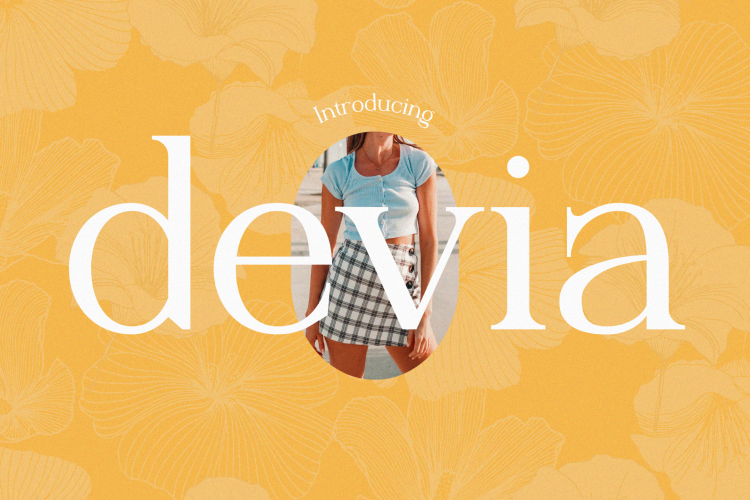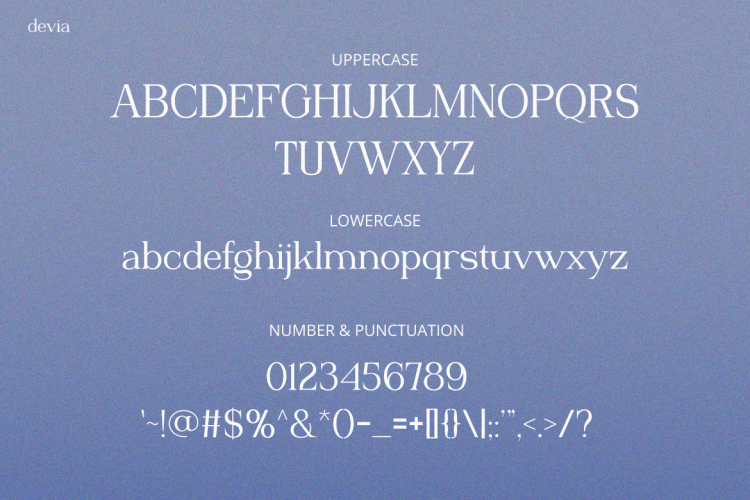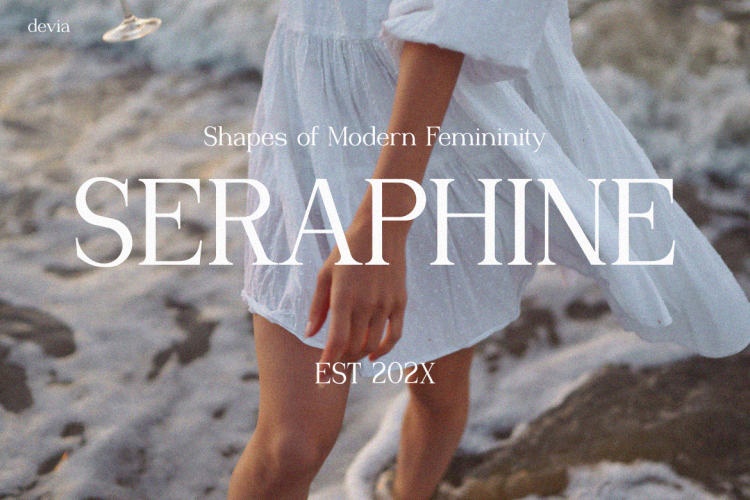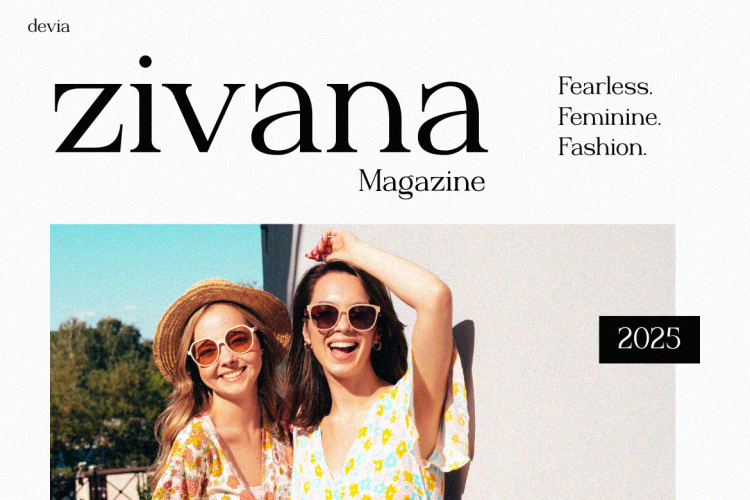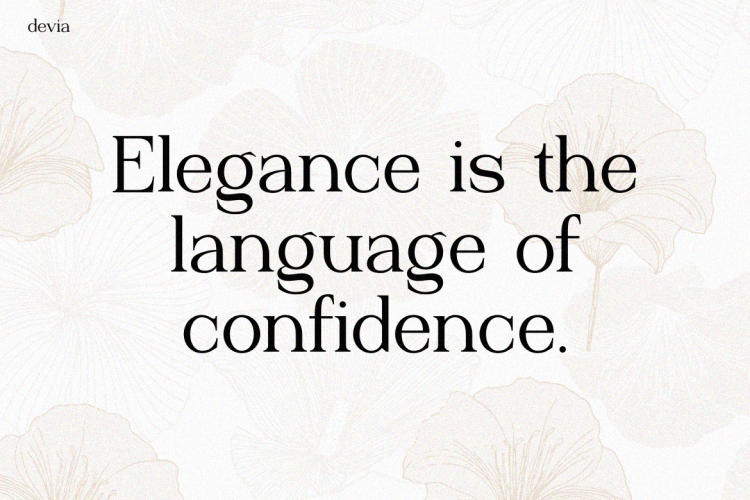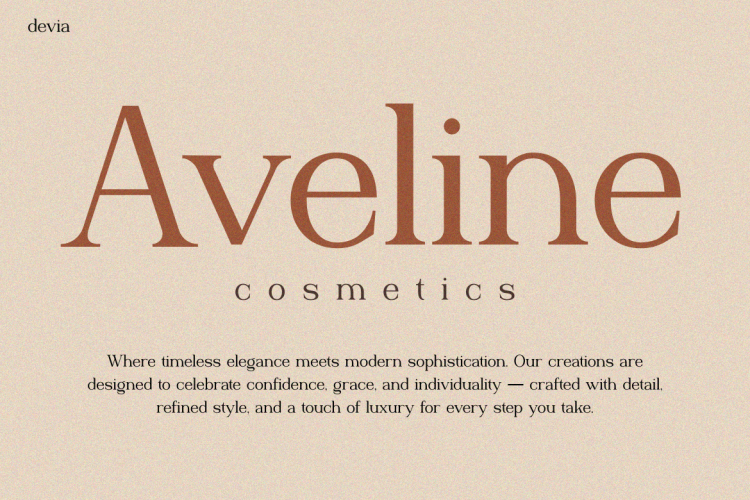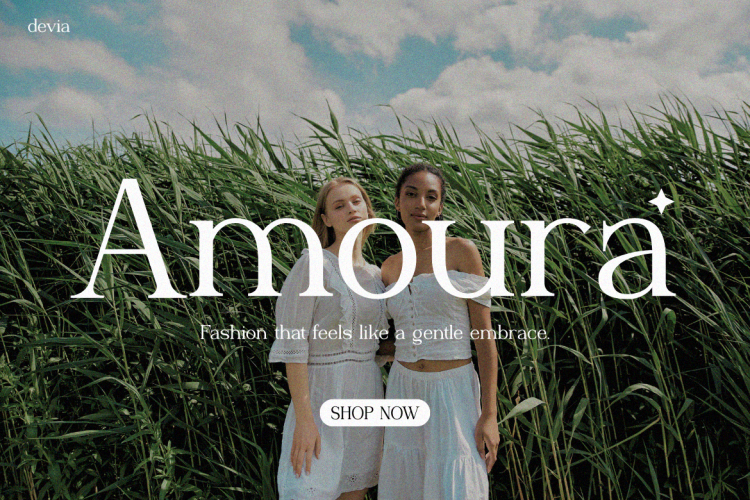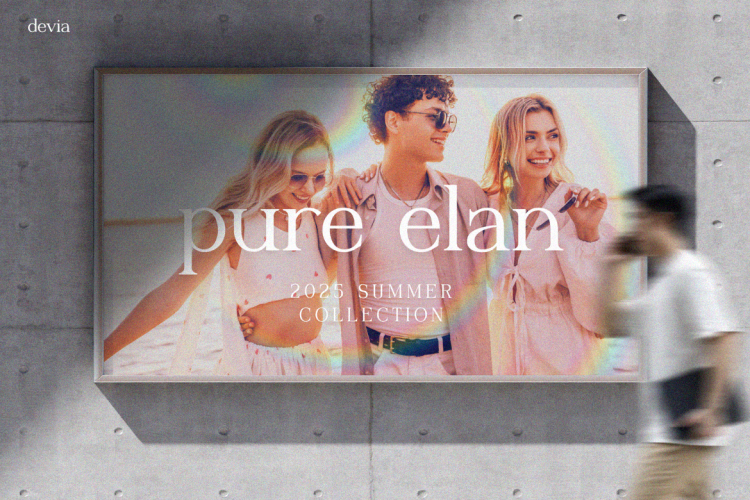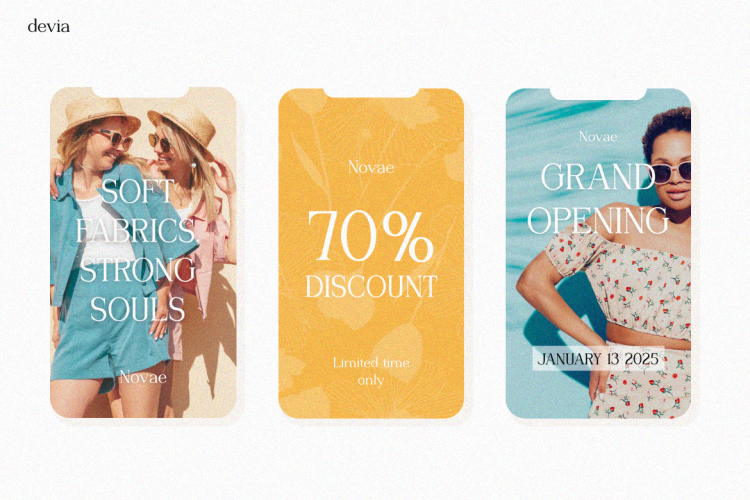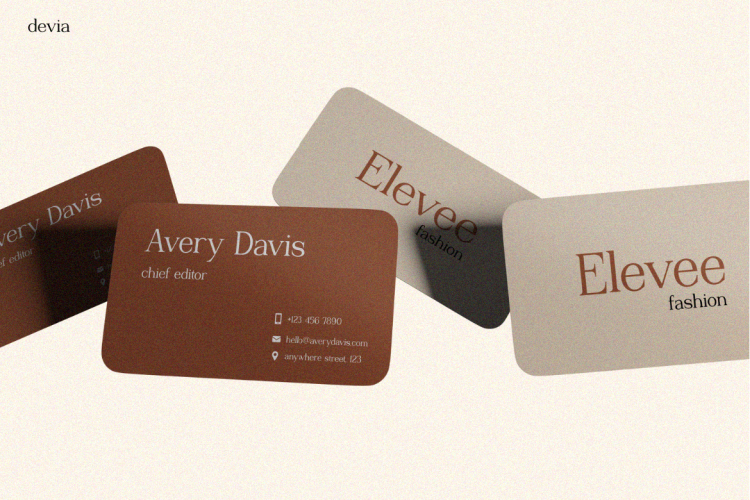
Devia โ Modern Elegance for Every Design
Instagram Font Devia is a unique typeface that blends sophistication with creativity, making it an excellent choice for modern branding. Its sleek curves, stylish balance, and versatile forms create an elegant aesthetic that captures attention instantly. Moreover, unlike generic fonts, Devia brings a sense of character and personality to your designs, making your visuals stand out both on social media and in print. Therefore, it is not only visually attractive but also highly functional across different platforms.
Why Instagram Font Devia is Special
The beauty of Instagram Font Devia lies in its harmonious mix of boldness and grace. Each letter is carefully designed to reflect both confidence and softness, which makes it adaptable to many creative themes. In addition, the typeface ensures your text doesnโt just inform but inspires, creating a long-lasting impression on your audience.
Furthermore, Devia works seamlessly across different media. From magazine covers, branding identity, packaging, and logos, to Instagram stories, this font provides a timeless charm that elevates any project. As a result, your work gains a polished, editorial look without losing a friendly and approachable appeal.
Who Should Use Instagram Font Devia
Content Creators & Influencers: Perfect for those who want stylish Instagram feeds, quote posts, or story highlights that appear professional.
Business Owners & Startups: Especially great for fashion, beauty, and lifestyle brands that need elegant typography to attract more customers.
Designers & Creatives: Ideal for branding kits, logos, marketing ads, and layouts where elegance truly matters.
Event & Wedding Planners: A stunning choice for invitations, save-the-date cards, and promotional materials.
In other words, whether youโre a professional designer or a beginner looking for a ready-to-use stylish typeface, Devia adapts effortlessly to your needs.
Closing Statement